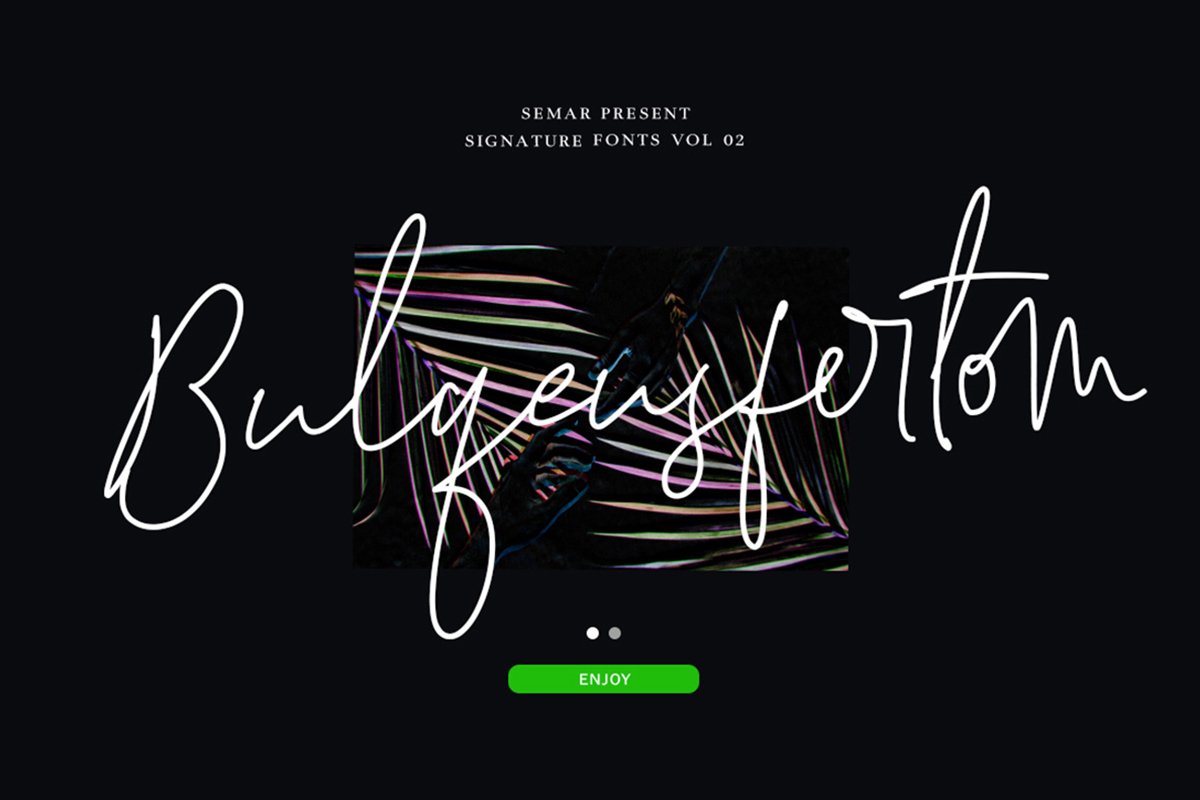
Bulqeusfertom Handwritten Fonts
Bulqeusfertom Alt
Bulqeusfertom
Holla Brada and Sista ."Bulqeusfertom" is an elegant signature fonts with confidence and courage. This font is very beautiful and cute available reguler and alternative style Perfect for logos, websites,Magazine,Quotes,YouTube thumbnails,Instagram stories,Casual Catalogue,Book covers etc.